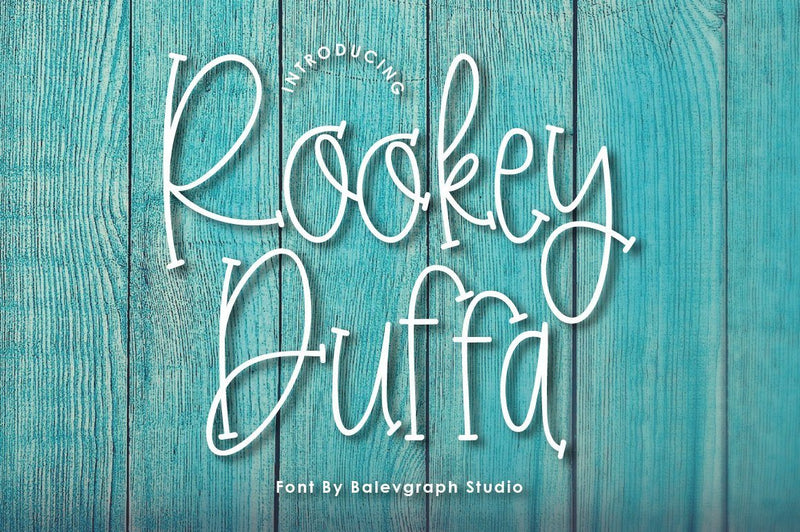
Rookey Fun Handwritten
Rookey is a cute and charming display font. Whimsical and a bit quirky, this font will brighten up each of your designs. Add it confidently to your projects, and you will love the results.
Rookey would perfect for photography, watermark, social media posts, advertisements, logos & branding, invitation, product designs, label, stationery, wedding designs, product packaging, special events or anything that need handwriting taste.